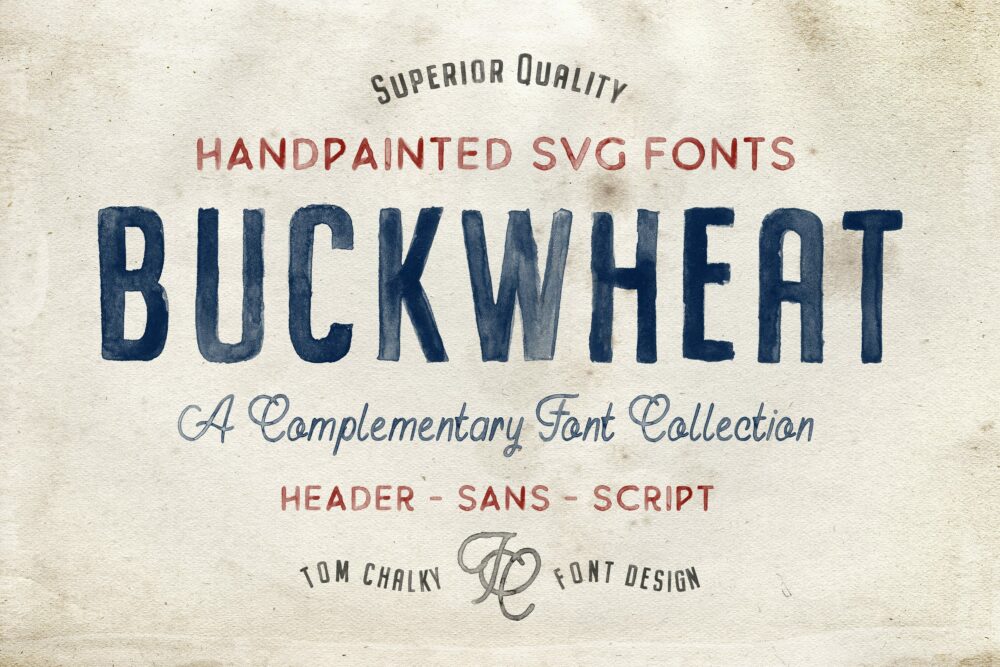
TC Buckwheat Opentype SVG
Say hello to Buckwheat—a font trio with a vintage soul and a modern twist. Its three styles are like old friends: reliable, quirky, and endlessly charming. Whether you’re dreaming up logos, crafting standout packaging, or adding character to your next big idea, Buckwheat brings plenty of personality to the table.
The inspiration behind Buckwheat comes from a love for old shop signs—back when every letter oozed character with its imperfections and charm. Modern signs often feel too polished, but OpenType-SVG technology finally made it possible to bring those gritty, tactile textures back to life. This trio is a celebration of the handmade and the characterful—a nod to the past with a fresh perspective.
What sets it apart is the OpenType-SVG format. Unlike traditional fonts, SVG fonts capture the intricate textures and details of real ink and paint strokes, giving your designs a beautifully handcrafted, almost tactile quality. These fonts work best in SVG-compatible software, like Adobe Photoshop and Illustrator (2020 or newer), Affinity Designer, or any app that supports OpenType-SVG features.
If you’re not using SVG-compatible software, no worries. Buckwheat also includes standard TTF fonts (vector-based) for maximum flexibility. While they don’t have the same stunning textures as the SVG versions, they’re clean, sharp, and great for when you need a more traditional option.
Whether it’s for nostalgic designs or something a little more experimental, Buckwheat is packed with versatility and charm, ready to complement your creative projects.
What are SVG Fonts?
This new format allows font designers to incorporate as much detail as our hearts desire into our products by using high-resolution bitmap images for the glyphs as opposed to traditional vector.
- Buckwheat TC SVG A condensed heading/titling font boasting real small caps (along with numerals, currency glyphs, and more to match the small caps).
- Buckwheat TC Sans SVGÂ A rounded sans-serif font with several stylistic alternatives for various capitals (A, B, G, H, J, K, P, and R).
- Buckwheat TC Script SVGÂ Tying everything together, a simple yet effective monoline script font.